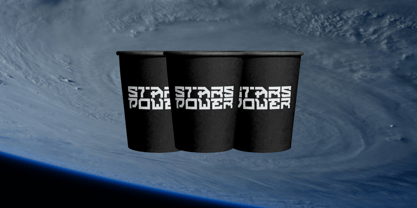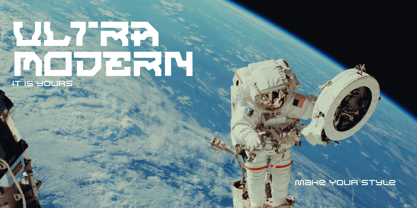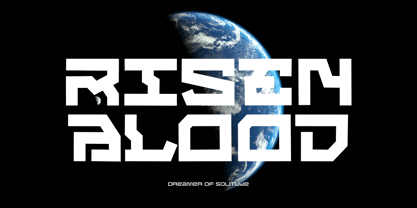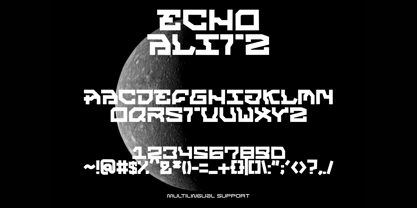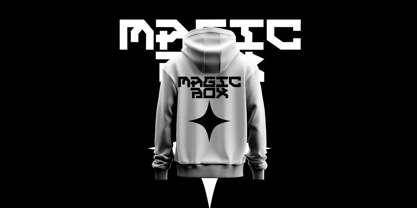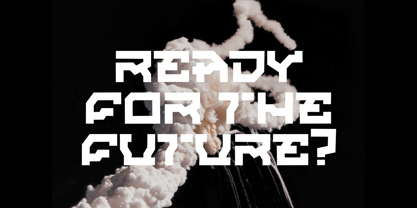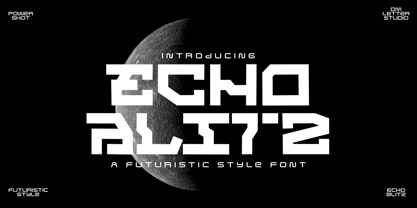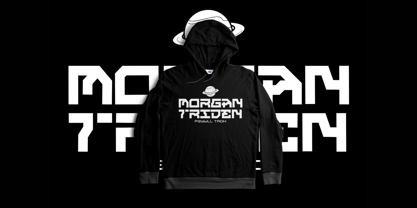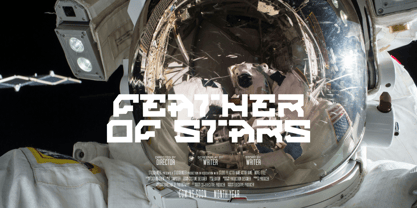
Echo Blitz
The Echo Blitz Font Family was designed by Dimas Prasetyo and published by DM Studio. Echo Blitz contains 1 styles. More about this family
Introducing Echo Blitz, a high-impact futuristic font that captures the essence of modern sci-fi and tech-driven design. Brought to you by DM Letter Studio, this bold and geometric typeface features sharp cuts, robotic angles, and a distinctly digital aesthetic.
Perfect for headlines, logos, posters, tech branding, and space-themed visuals, Echo Blitz stands out in both digital and print projects. Whether you're designing a cyberpunk interface, a gaming title, or a sci-fi movie poster, Echo Blitz delivers a powerful visual punch.
Features:
• Bold futuristic display font
• Uppercase characters with sharp, angular structure
• Includes punctuation and symbols
• Perfect for sci-fi themes, tech branding, esports, and digital art
• Multilingual support included
Designers: Dimas Prasetyo
Foundry: DM Studio